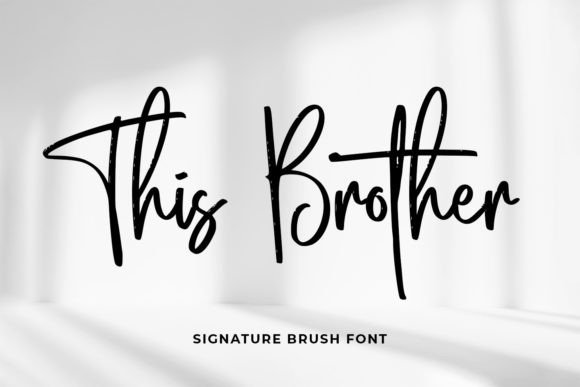
Introducing This Brother Font - the perfect script font for flower shops, weddings, and more! Created by the talented Abodaniel, this signature font in brush style is sure to elevate your designs and captivate your audience.
Whether you're looking to brand your business, create packaging, design wedding invitations, or make a memorable logo, This Brother Font is the perfect choice. With its unique brush strokes and elegant curves, it's the perfect way to add a touch of personality and creativity to any project.
But This Brother Font isn't just for business use - it's also great for personal projects too! Use it to design beautiful and eye-catching t-shirts, tote bags, cards, banners, and social media posts that are sure to stand out from the crowd.